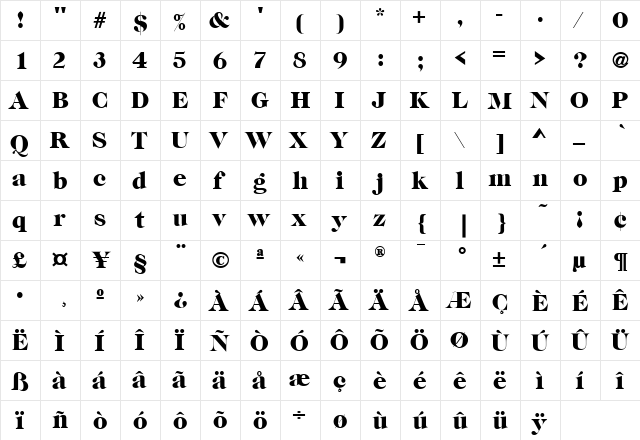
CaslonGraphiqueEF Regular
Design Context for CaslonGraphiqueEF Typeface
CaslonGraphiqueEF is a composed and adaptable typeface that performs quietly and consistently across a wide range of design contexts.